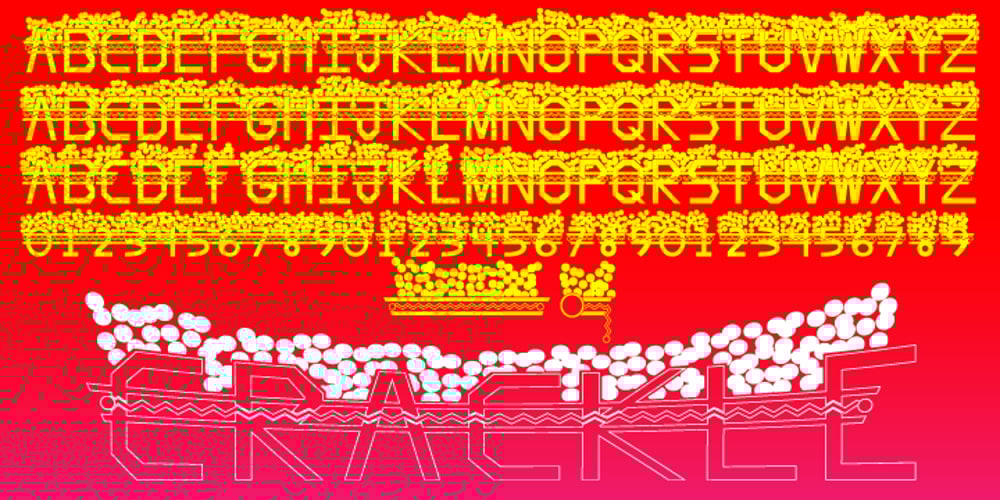
King Kirby
King Kirby font
King Kirby Font Family was designed by published by ziggytim. King Kirby contains 2 styles and family package options. Hail to the king baby! Inspired by the greatest comics artist of all time, these fonts will have you lettering pages like a New God! Both feature a seamless center squiggle and the deluxe font feature awesome Kirby crackle!